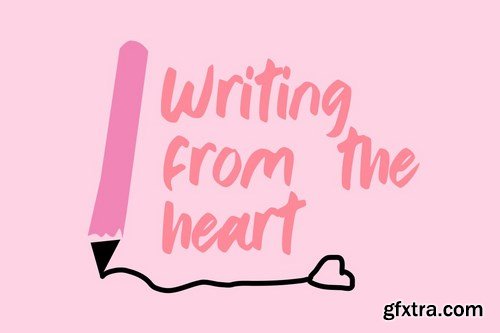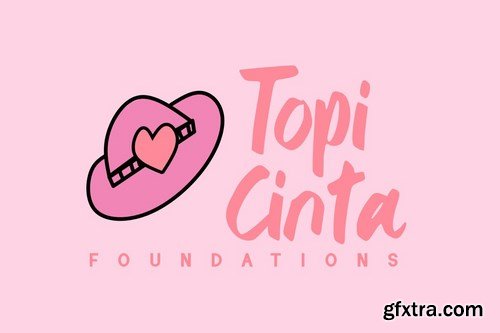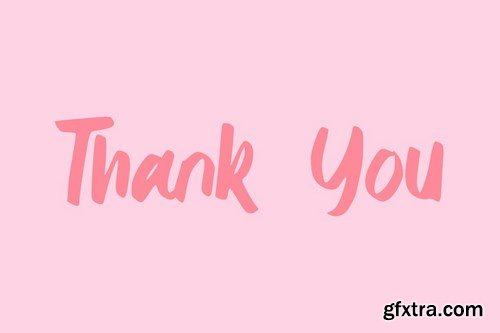
Obak Delik is a display font
Obak Delik is a beautiful handwritten font perfect for any design you wish to create.
Add it to your creative projects, and notice how it makes them come alive!